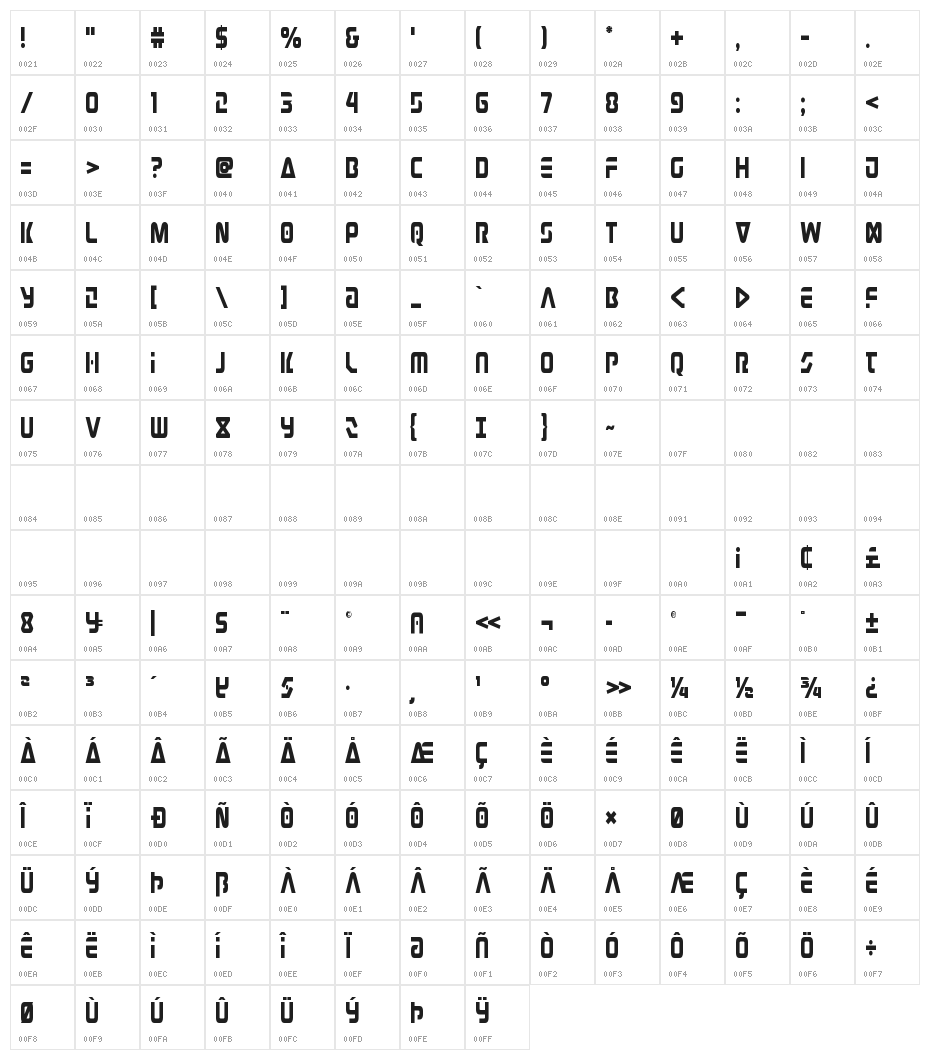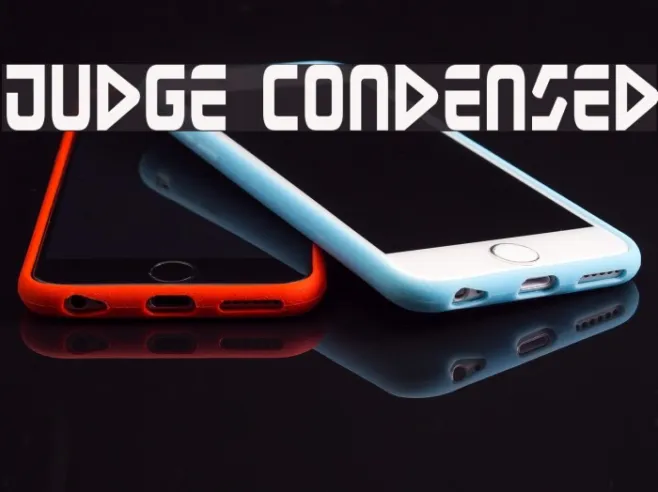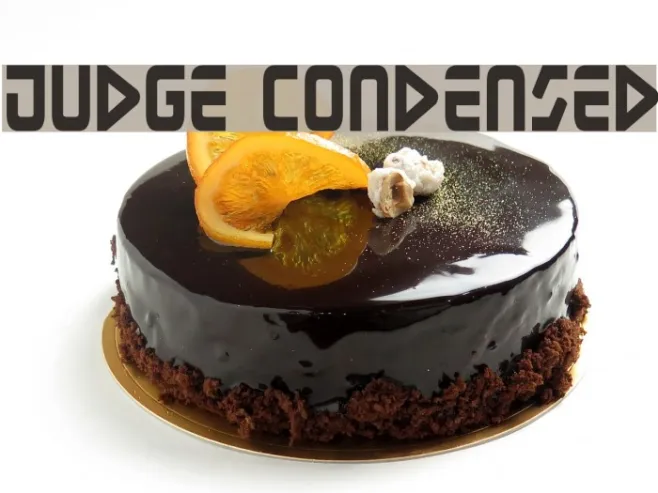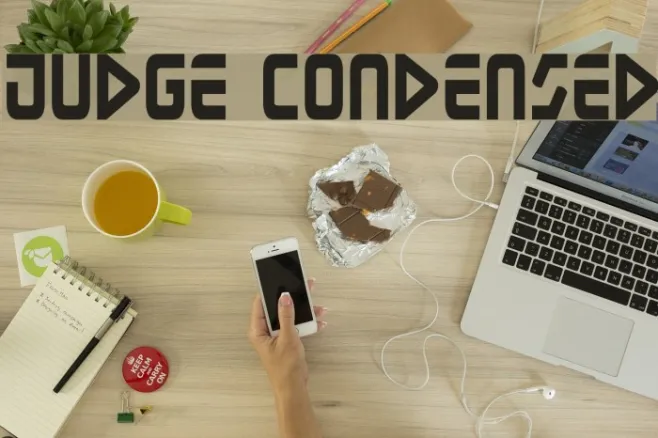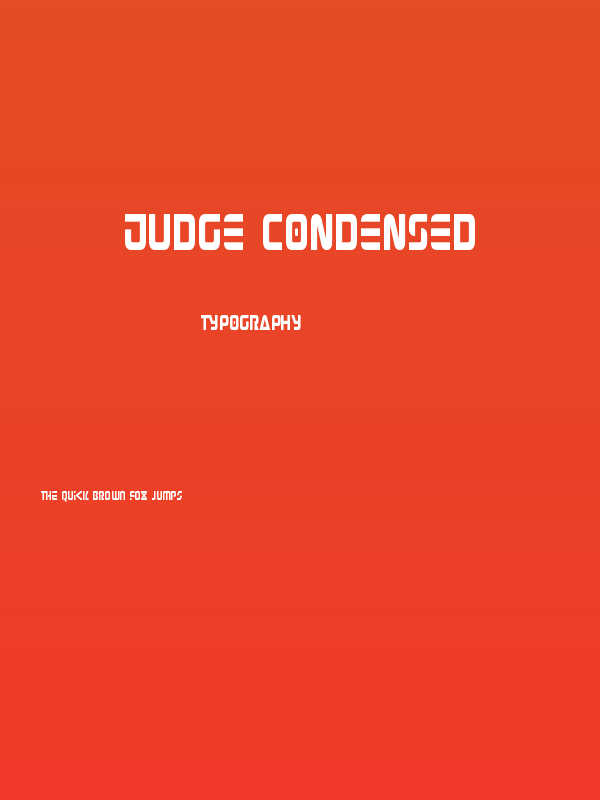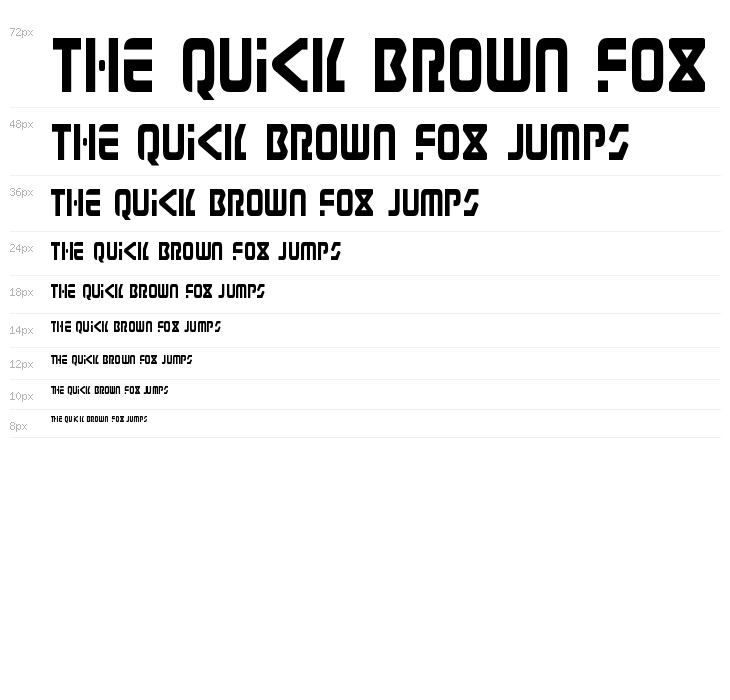
Judge Condensed Font
Judge Condensed Description
This font features a bold and geometric design with a futuristic aesthetic. The characters are constructed with sharp angles and straight lines, creating a sense of modernity and innovation. The uppercase and lowercase letters maintain a consistent style, with unique cutouts and shapes that add visual interest. The numbers and special characters follow the same design principles, ensuring uniformity across all glyphs. The condensed width of the font allows for efficient use of space, making it suitable for headlines and impactful text. Its distinct style makes it ideal for projects that require a strong, contemporary look.
| Proposed Projects | Ideal for technology branding, sci-fi posters, video game titles, and modern advertising. |